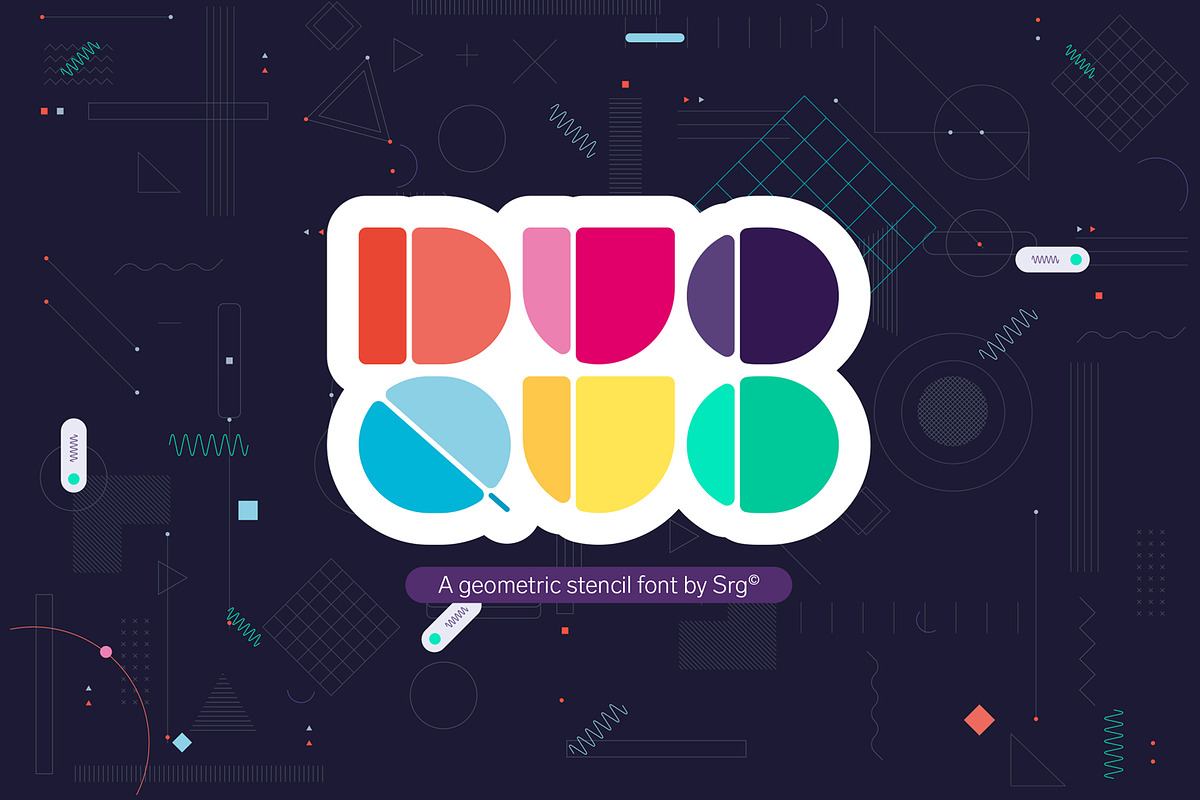
Quo Duo – Geometric Display Typeface
Introducing Quo Duo, a geometric display typeface designed by TWOD. This font features a clean, modern design with geometric shapes, making it ideal for various design applications.
Features:
• Styles Included: Regular and Italic
• Character Set: Uppercase and lowercase letters, numerals, and basic punctuation
Usage Recommendations:
Quo Duo is suitable for:
• Headlines
• Logos
• Posters
• Branding materials
• Invitations